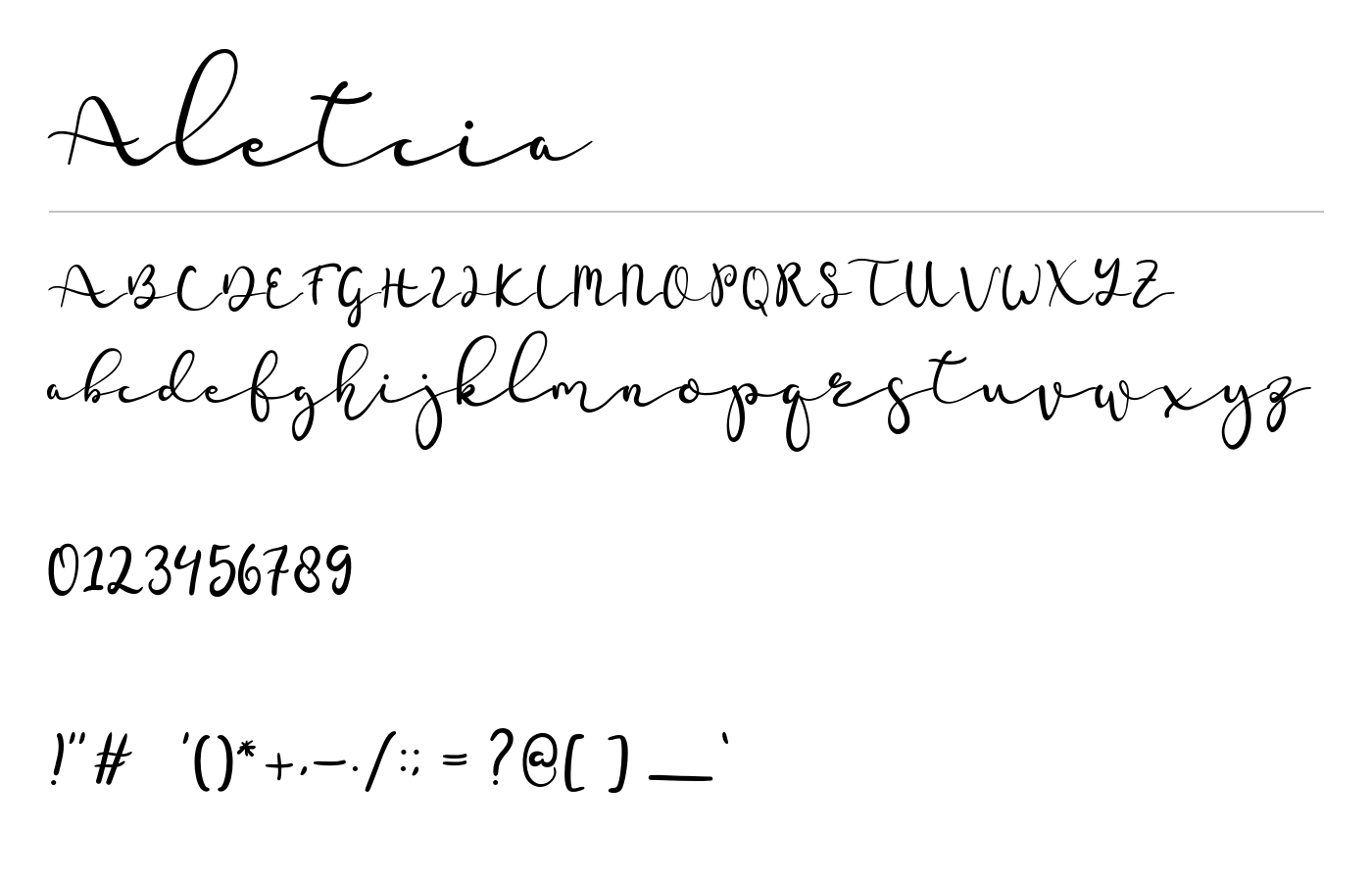
Aletcia is a delicate, handwritten script font with a graceful and flowing style that feels personal and approachable. Its slender strokes and charming letterforms lend a casual elegance, making it ideal for invitations, branding, and creative projects that seek a warm, friendly, yet refined touch. This font works well in designs that want to convey creativity, individuality, and a soft, artistic vibe.
Aletcia Font
About Aletcia Font
| Font family | Aletcia Font |
| Designer | MissinkLab Studio |